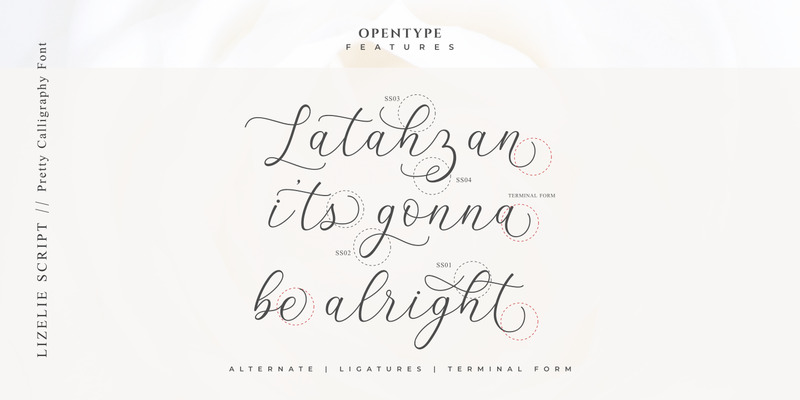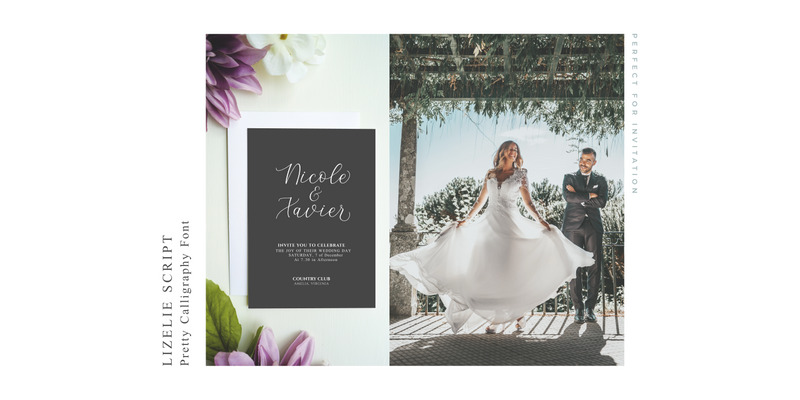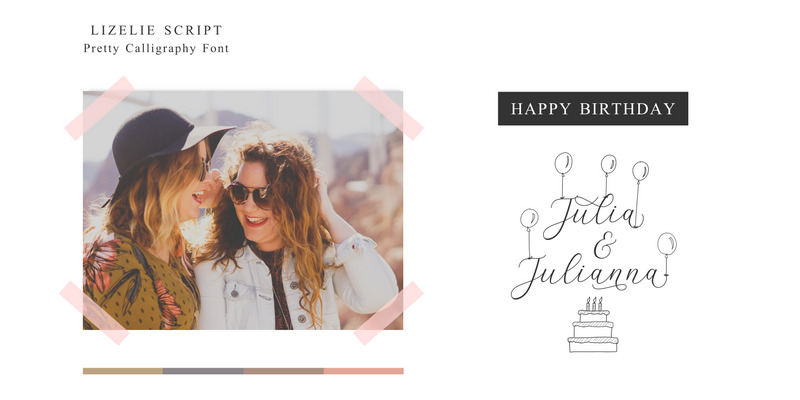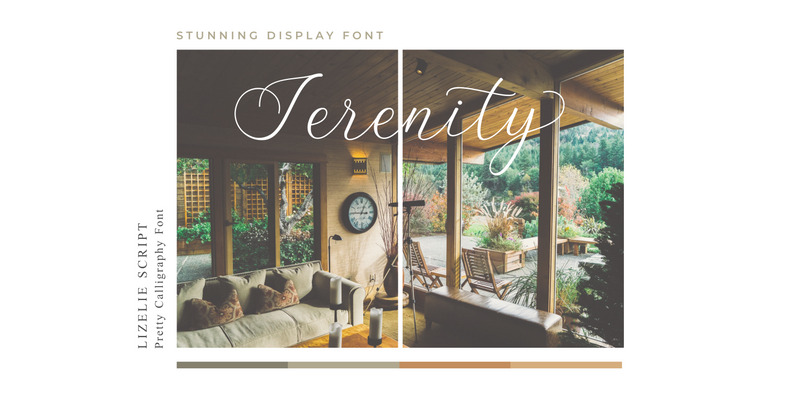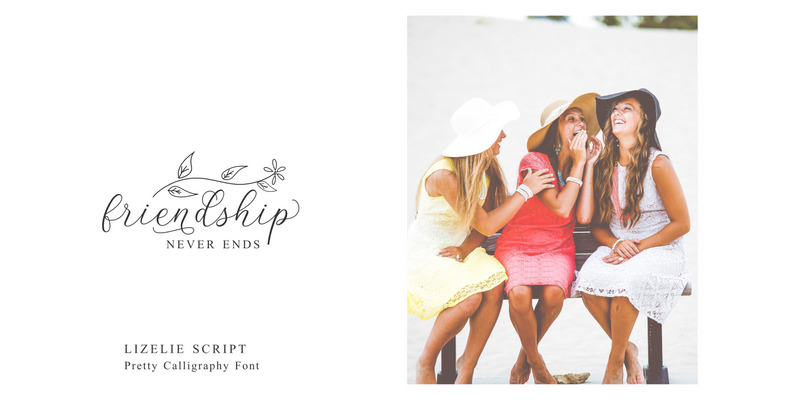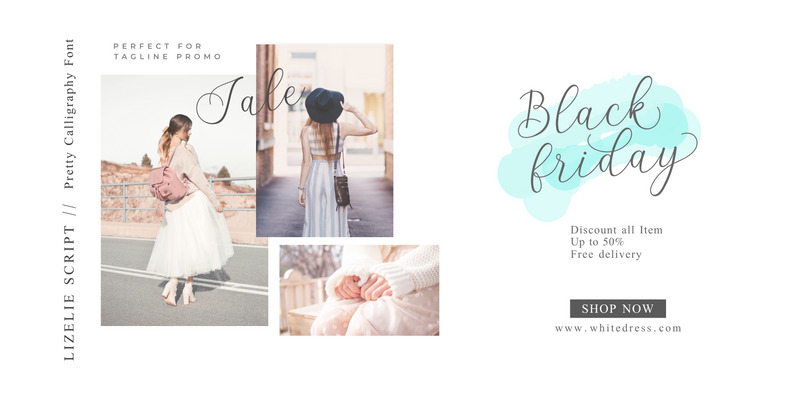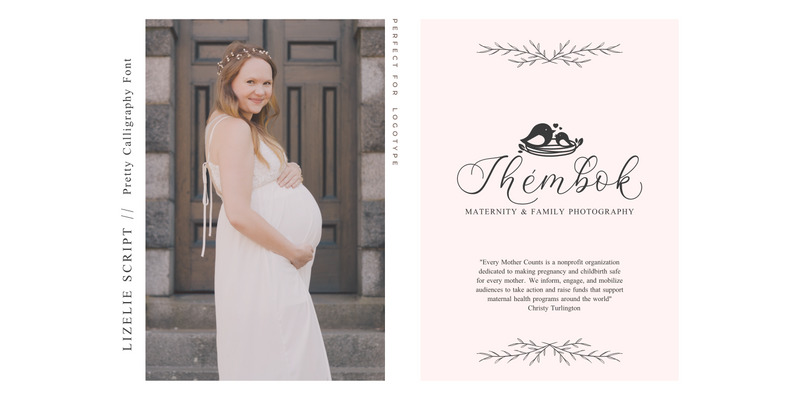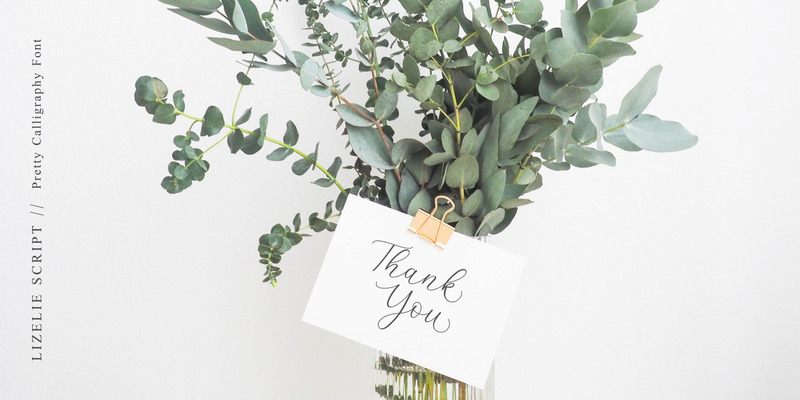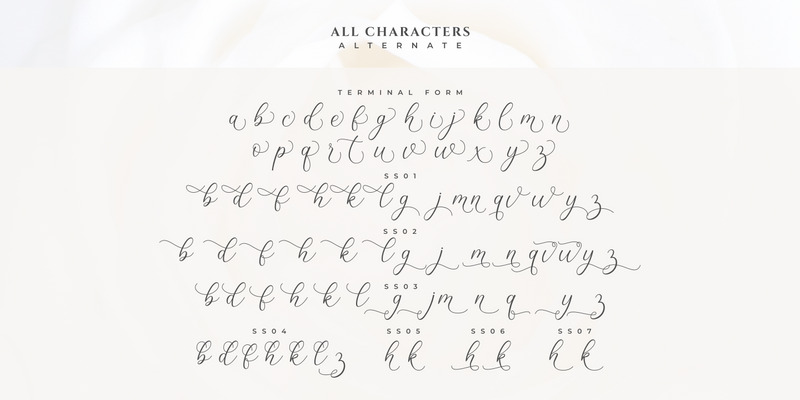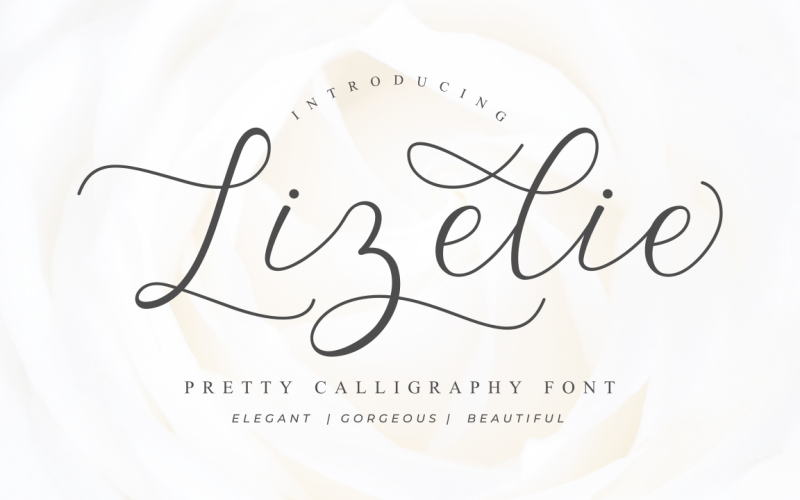
Lizelie Calligraphy Script Font
Introducing our new font, Lizelie Calligraphy font. An elegant and beautiful font that was built with OpenType features like alternates, ligature, and terminal forms. Touch your project with Lizelie font to make elegant, gorgeous, and beautiful sense.
• Multilingual, support 17 languages